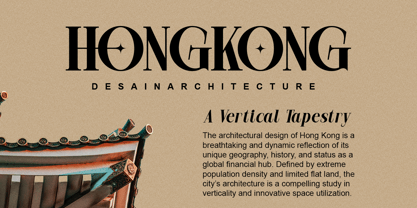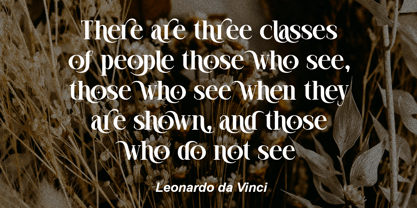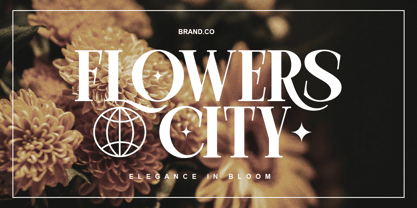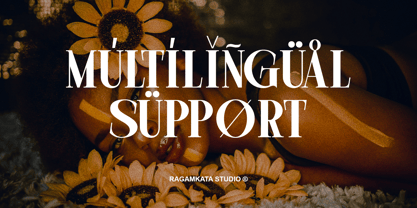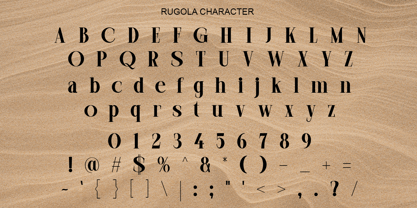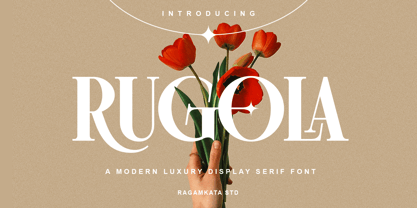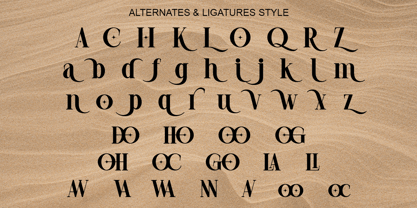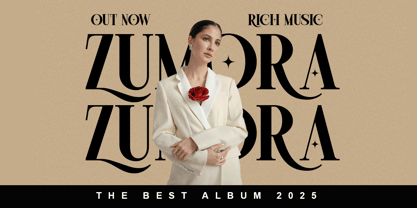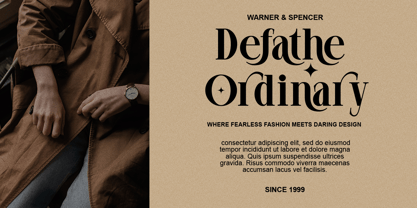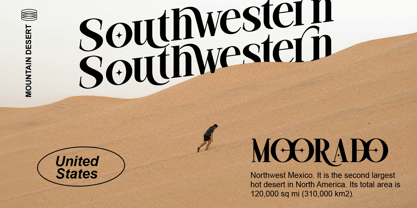
Rugola
by RagamKata
The Rugola Font Family was designed by Yogiswhara Dio Prakoso Riadi and published by RagamKata. Rugola contains 2 styles and family package options. More about this family
Rugola is modern luxury serif font. This font is perfect choice for adding a modern and elegance, sophisticated look to your artwork.
Rugola very suitable for a logo, designing packaging, or working on a book cover, Rugola will help elevate your work to the next level.
- Ligatures Character
- Stylish Alternates
- Multi language Support